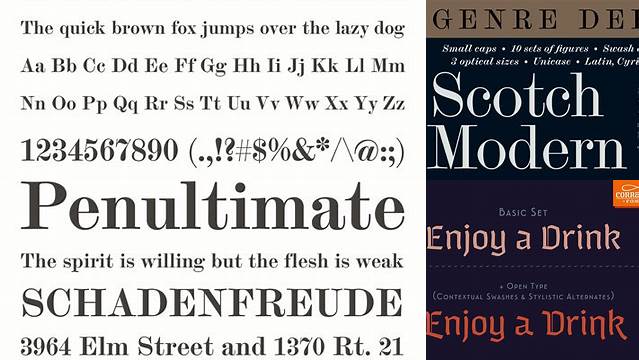
Scotch Modern Font Free: A Stylish Download Guide
Welcome, design enthusiasts! Are you on the hunt for a font that screams modern sophistication and effortlessly blends classic charm with a contemporary twist? Look no further because we're diving headfirst into the world of the Scotch Modern Font, and the best part? It's free! In this comprehensive guide, we'll explore everything you need to know about this stunning typeface – from its unique characteristics and usage tips to where you can snag a safe and legal download. Get ready to elevate your designs with a touch of elegance and a whole lot of style. Let's get started, shall we?
Understanding the Scotch Modern Font
So, what exactly is the Scotch Modern Font? Think of it as a stylish bridge between the past and the present. This font family draws inspiration from the Scotch Roman style, a popular typeface from the early 19th century. However, it's been given a sleek, modern makeover, making it perfect for a wide range of design projects. The key characteristics of the Scotch Modern Font are its high contrast between thick and thin strokes, its elegant serifs, and its overall refined appearance. It's a typeface that commands attention without being overly flashy, offering a sense of timelessness and sophistication.
This font family, as we've previously mentioned, is a modern interpretation of the classic Scotch Roman style. The roots of this style are deeply embedded in the history of typography, tracing back to the early 1800s. When you consider the evolution of typeface design, you'll notice that the Scotch Roman style was a response to the shift in printing technology and the aesthetic preferences of the era. It was a period when printing presses were becoming more efficient, and there was a growing demand for typefaces that were both legible and visually appealing. The Scotch Roman fonts were designed to meet these needs, offering a balance between elegance and functionality. These typefaces quickly gained popularity due to their distinctive features, which included a high contrast between thick and thin strokes, delicate serifs, and an upright stance. These features gave the fonts a refined and sophisticated appearance, making them suitable for a variety of applications, from books and newspapers to advertisements and signage. The Scotch Modern Font is a modern take on this classic style, preserving the essence of the original design while adding a contemporary touch. This font family is designed to be versatile and suitable for a wide range of design projects. Its versatility makes it a valuable asset for designers who want to create visually appealing and effective designs. The balance of elegance and readability makes it ideal for various applications, including both print and digital media. Furthermore, this font's clean and crisp appearance ensures that your message is conveyed clearly, without being overshadowed by unnecessary embellishments. The font's ability to seamlessly blend classic charm with a contemporary twist makes it perfect for designers seeking a balance between tradition and innovation. It can be used to evoke a sense of nostalgia while still feeling fresh and modern. This makes the Scotch Modern Font a great choice for a wide range of design projects.
- High Contrast: The most striking feature of the Scotch Modern Font is the dramatic difference between its thick and thin strokes. This contrast adds a touch of visual flair and elegance.
- Elegant Serifs: The serifs (the small decorative strokes at the ends of the letters) are refined and add to the font's overall sophistication.
- Clean and Crisp: The font is designed with clarity in mind, making it highly readable in various sizes and formats.
- Versatile: It's a versatile font that works well in headlines, body text, and display graphics.
- Timeless Appeal: The Scotch Modern Font has a classic feel, ensuring your designs won't look dated anytime soon.
Using the Scotch Modern Font in Your Designs
So you've got your hands on this gorgeous font – now what? The Scotch Modern Font is incredibly versatile, making it suitable for various design projects. Here are some ideas to spark your creativity:
- Branding and Logos: The font's elegance and sophistication make it a great choice for creating logos and branding materials for businesses that want to project a sense of refinement and class.
- Headlines and Titles: The high contrast and readability of the font make it perfect for eye-catching headlines and titles. It's sure to grab attention.
Conclusion: Elevate Your Designs with the Scotch Modern Font
So there you have it, folks! The Scotch Modern Font is a fantastic choice for designers who want to add a touch of elegance and sophistication to their projects, especially since it can be downloaded for free. Whether you're a seasoned designer or just starting out, the information provided in this guide will make you feel confident in your next design. Just remember to download it legally and safely, and get ready to unleash your creativity. Happy designing!